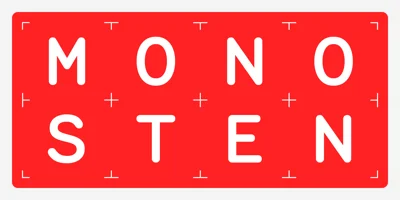
Monosten Font
The Monosten Font is ideal for minimalist tech branding, modern industrial designs, architectural firm identities, contemporary software interfaces, sleek product packaging, systematic data visualization, cutting-edge digital platforms, and progressive corporate communications. This precise typeface excels in projects for technology companies, design studios, engineering firms, architectural practices, and businesses requiring clean, systematic typography that conveys efficiency, precision, and contemporary technical excellence.
What makes the Monosten Font exciting is its perfect fusion of monospace functionality with contemporary design sophistication and systematic precision. The font features uniformly-spaced characters with clean geometric construction and modern refinements that ensure optimal performance in both technical applications and contemporary branding contexts. Its systematic character and technical elegance make it perfect for organizations seeking to convey methodical expertise, technological competence, and forward-thinking innovation. The font's precise nature and contemporary appeal create immediate trust in technical and professional environments.
The Monosten Font family includes systematically-designed variations: Thin Code, Light System, Regular Technical, Medium Data, Bold Structure, and Heavy Industrial versions. Each weight maintains consistent monospace spacing while offering different visual densities for complex technical interfaces and systematic design applications. The family also features coding symbols, technical operators, systematic ornaments, and contemporary elements essential for modern technical and industrial design projects.
Whether you're developing technical brand identities, creating systematic marketing materials, or designing precision-focused promotional campaigns, the Monosten Font provides the ultimate solution for projects requiring methodical, contemporary typography. This exceptional typeface brings genuine technical sophistication to design work, making it an indispensable resource for designers working with technology companies, engineering firms, architectural studios, and organizations embracing systematic design principles and contemporary technical excellence.